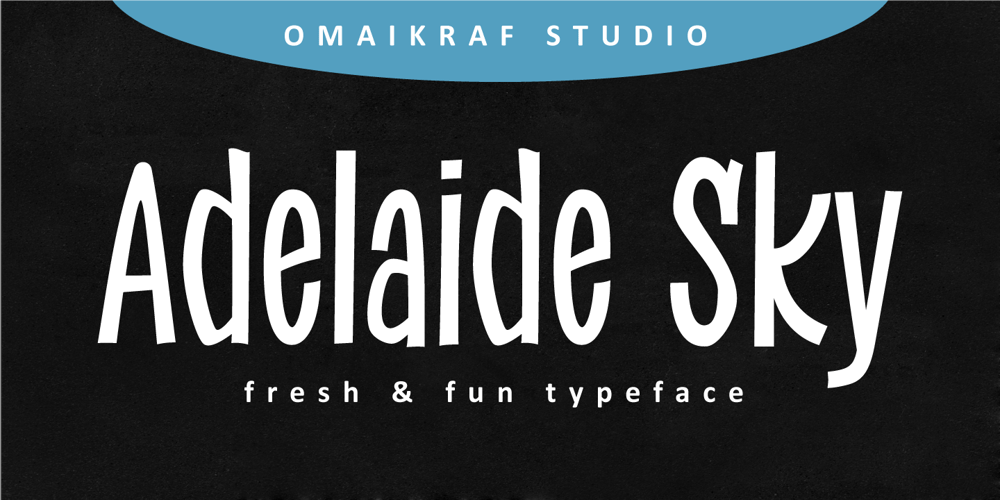
Adelaide Sky Font Family was designed by Ardyan Permana and published by Omaikraf Studio. Adelaide Sky contains 1 styles and family package options. Adelaide Sky is a fun and relaxed display font. Casual and versatile, this font fits a wide range of designs, such as branding, product packaging, invitation, quote, t-shirt, label, poster, logo or any other idea that you wish to develop.